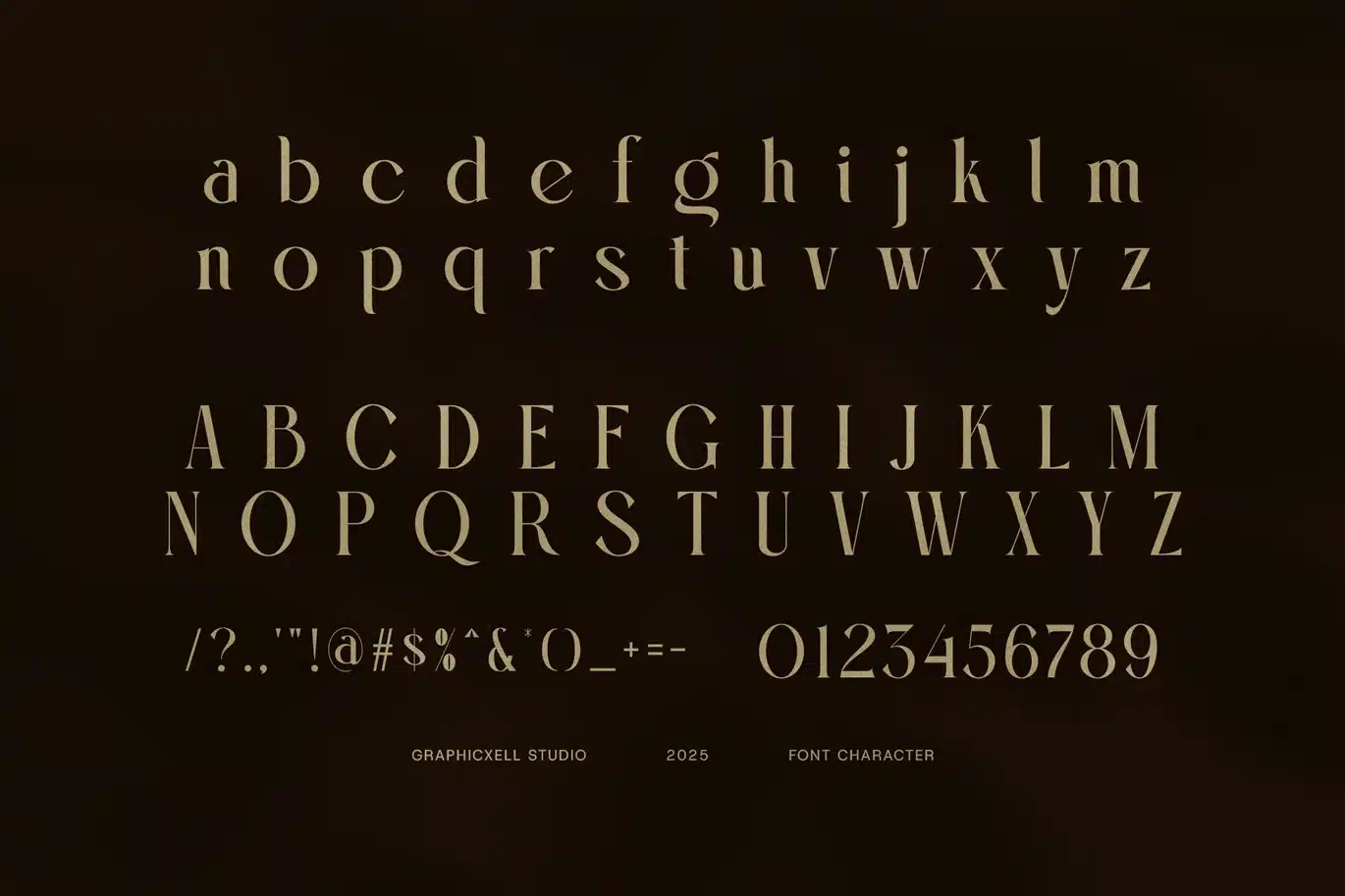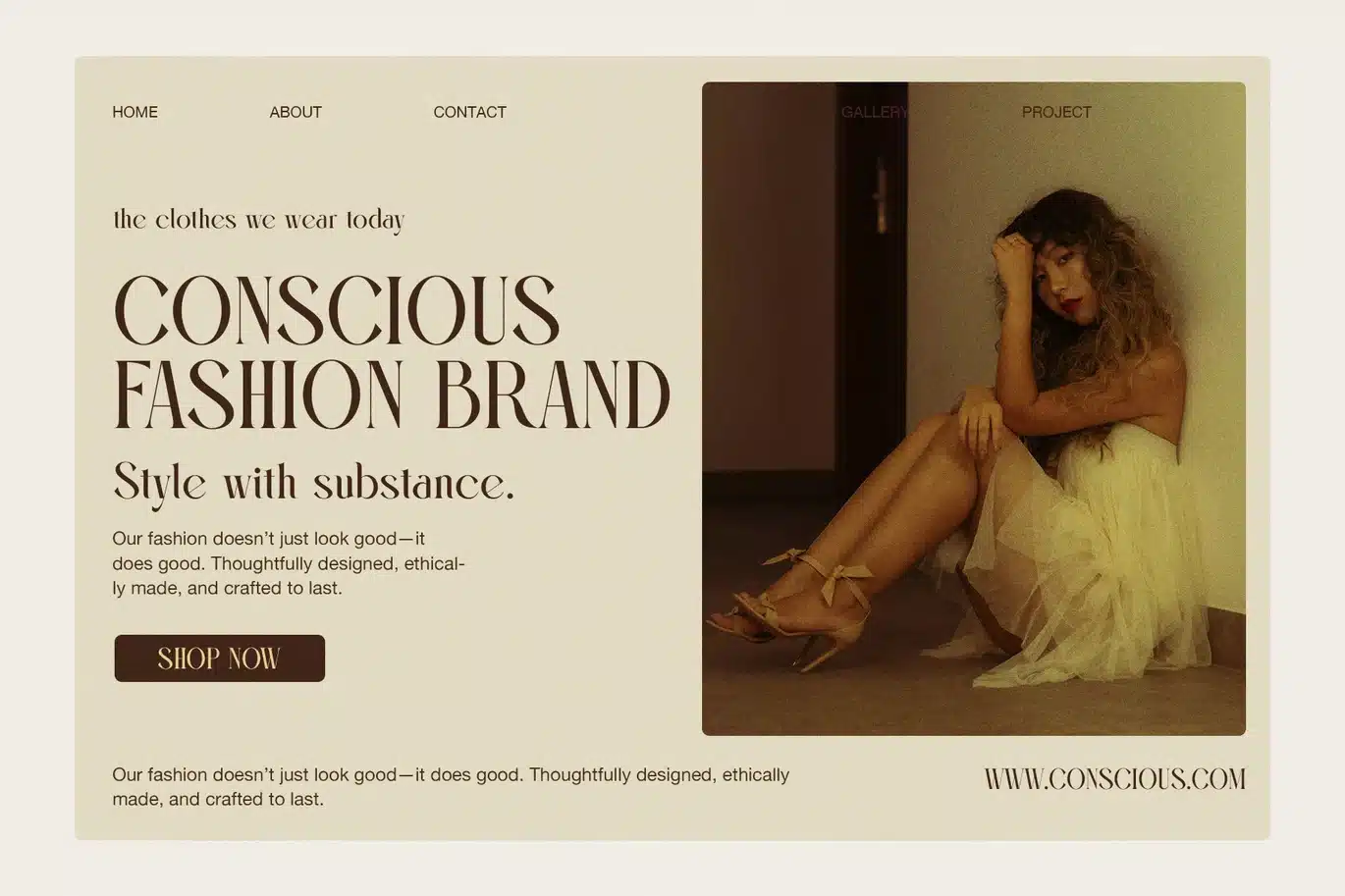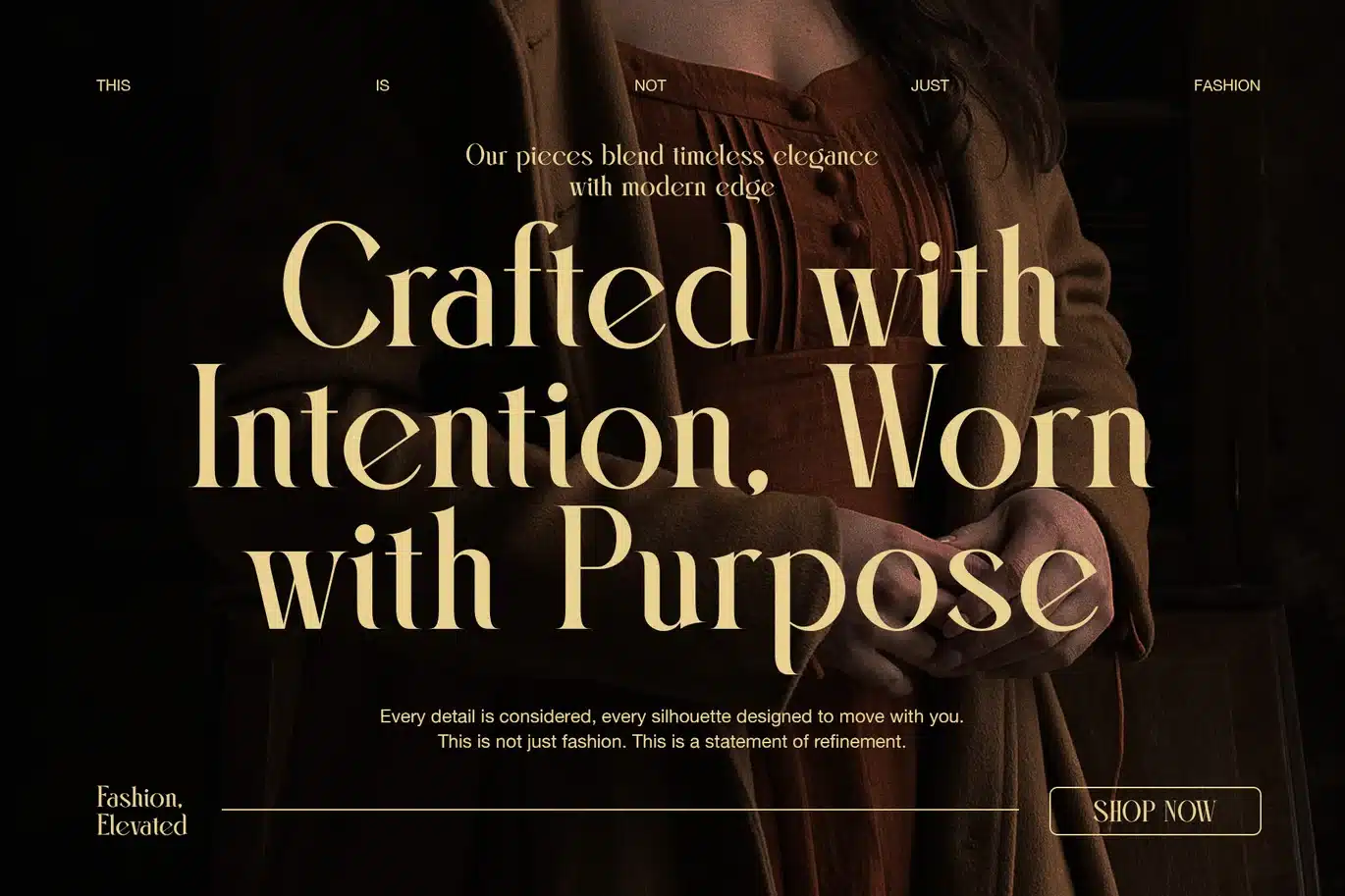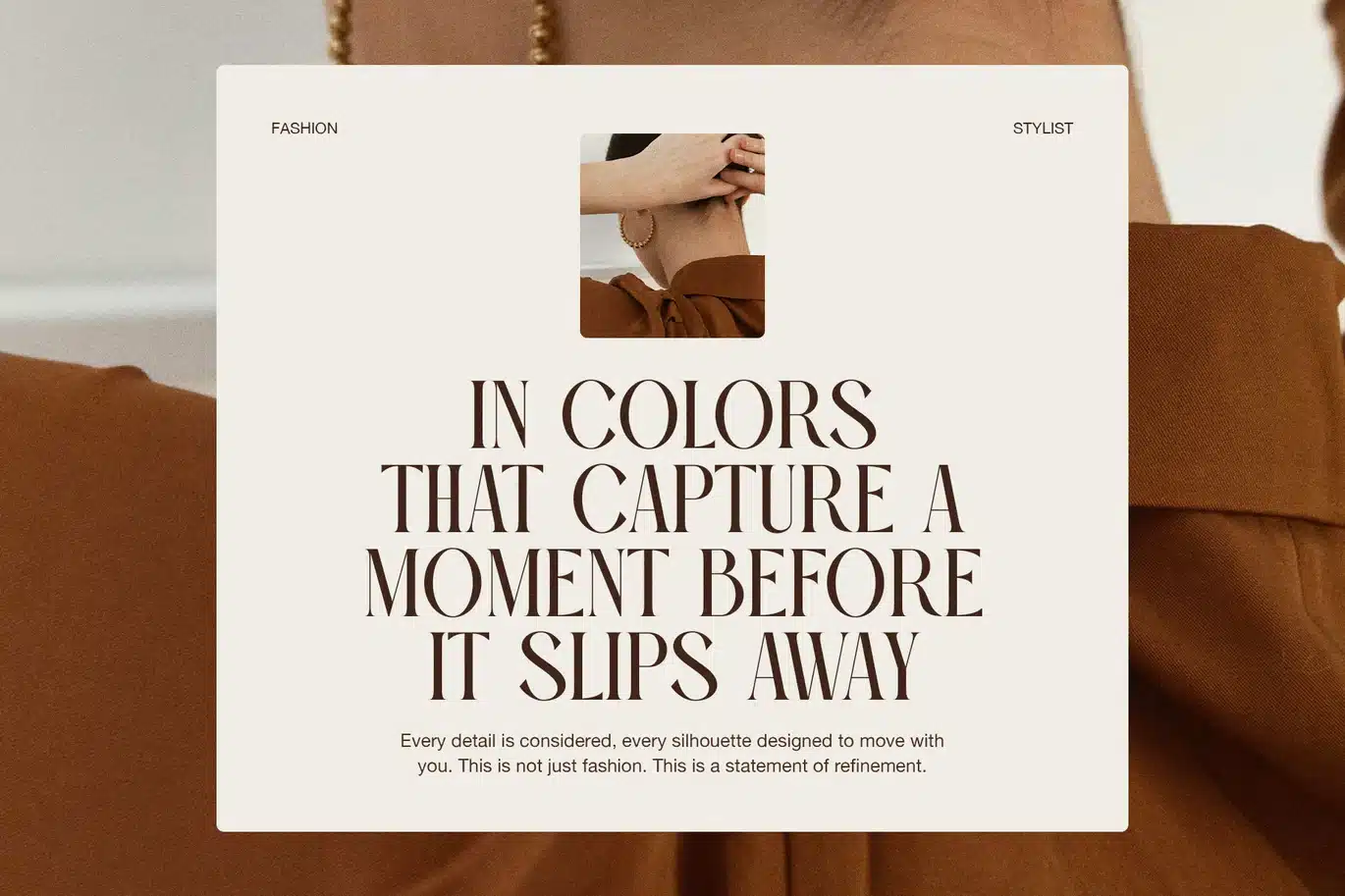
Haoky Elegant Serif Font
Haoky Elegant Serif Font is a refined and stylish serif typeface designed to bring a modern, professional touch to your creative projects. Crafted with balanced proportions and elegant curves, Haoky blends classic charm with a contemporary edge, making it perfect for a wide range of design needs.
From luxury branding to minimalist layouts, this font delivers both function and flair. The subtle details in every letterform make Haoky stand out in any context—whether it's used in logos, product packaging, editorial spreads, or web interfaces. Thanks to its proportional structure and clean design, it ensures excellent readability while enhancing your brand’s identity.
One of Haoky's standout features is its beautifully designed ligatures. These thoughtful stylistic touches help your typography flow naturally, adding character without overwhelming the composition. Whether you're designing for fashion, beauty, lifestyle, or gourmet products, Haoky is versatile enough to match the tone and elevate the presentation.
✨ Why Choose Haoky Elegant Serif?
Elegant and modern serif style
Proportional shapes for consistent branding
Functional ligatures that improve visual harmony
Perfect for logos, editorial design, web use, packaging, and advertising
Easy to combine with sans-serif or script fonts
High readability for print and digital projects
Use Haoky to create a timeless look, whether for magazine headlines, boutique branding, or promotional campaigns. Its high-end appearance and balanced structure make it a must-have for designers aiming for sophistication and clarity.
If your goal is to make an impression that lasts, Haoky Elegant Serif Font is the ideal solution—graceful, modern, and designed to perform beautifully across all mediums.